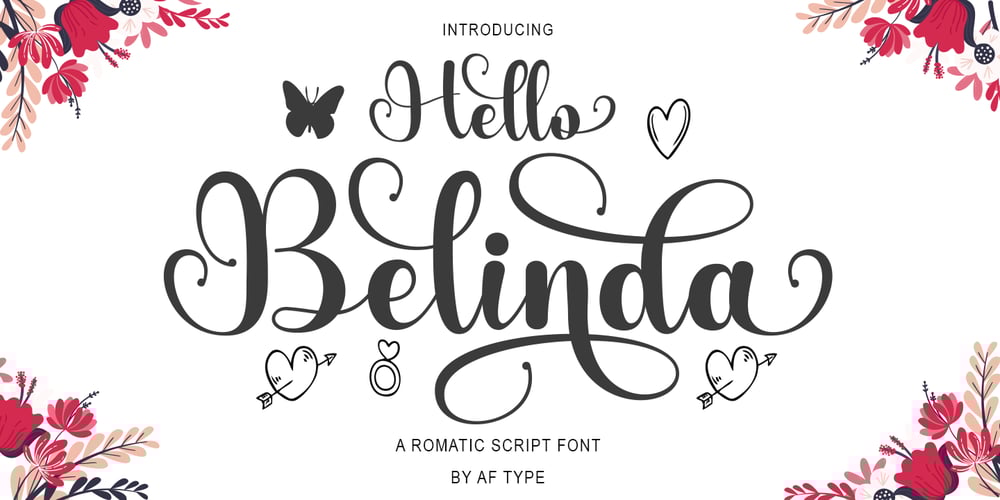
Hello Belinda Font Family was designed by Al Qausar Firdaus and published by AF Type. Hello Belinda contains 1 styles and family package options. Hello Belinda is a beautiful modern calligraphy typeface, I hope you will be interested in this font, if you want to use it for your work.This font can be used easily and simply because there are many features in it. contains a full set of lowercase and uppercase letters, a wide variety of punctuation marks, numbers, and multilingual support.Hello Belinda is very suitable for the design of today’s growing market, this font has a stylish, trendy, natural and soft font, with this font you can take advantage of every opportunity of the moment is a great way to highlight the best party celebrations, because this font will be support for purposes such as wedding invitations, branding, parties, graduations, birthdays, gatherings, etc.Thank You,AF Type